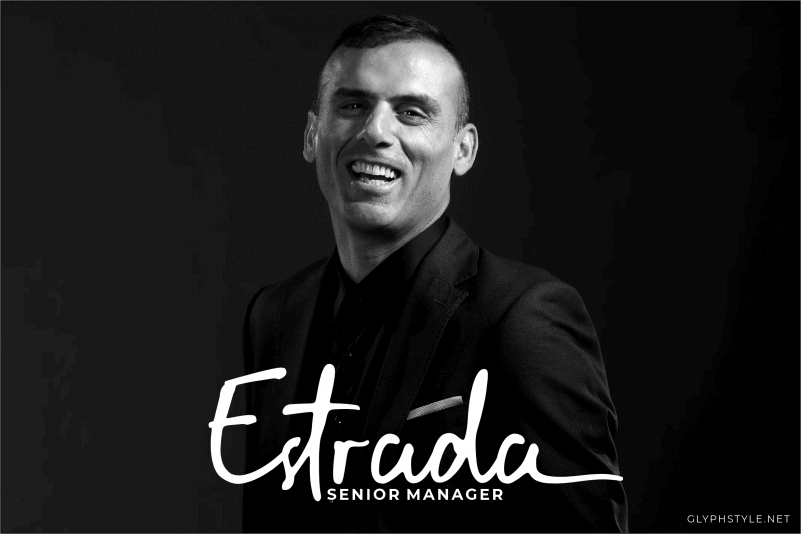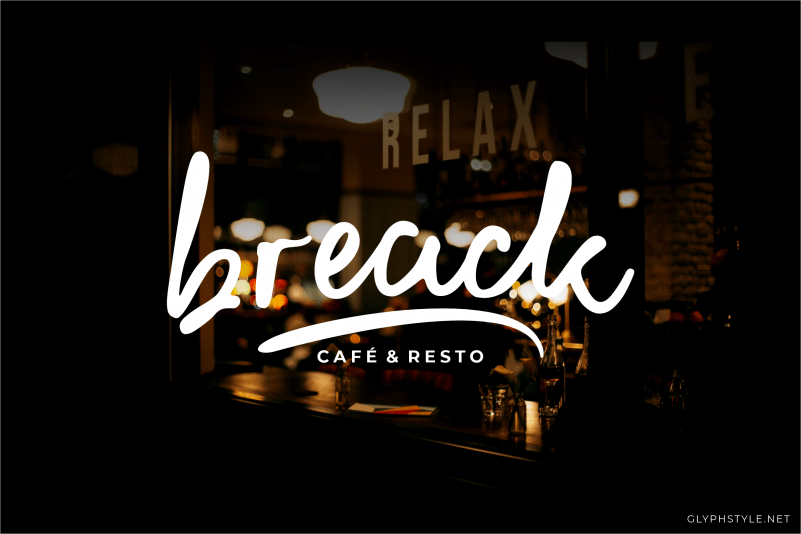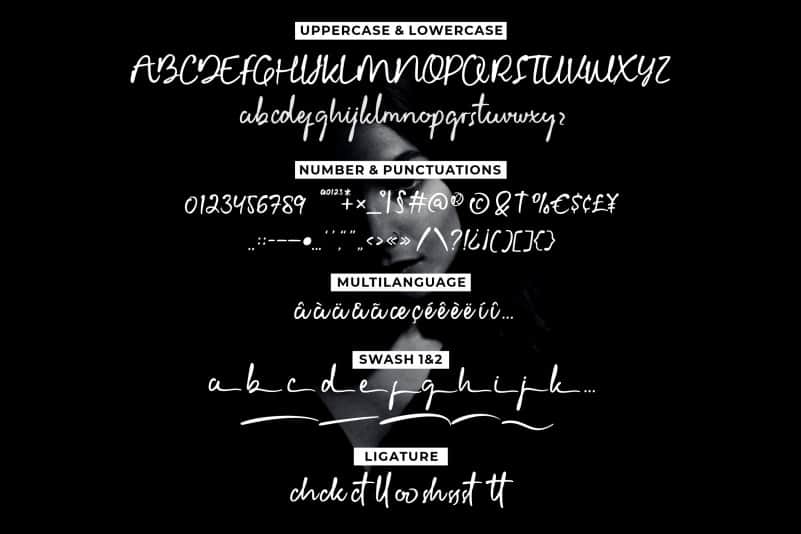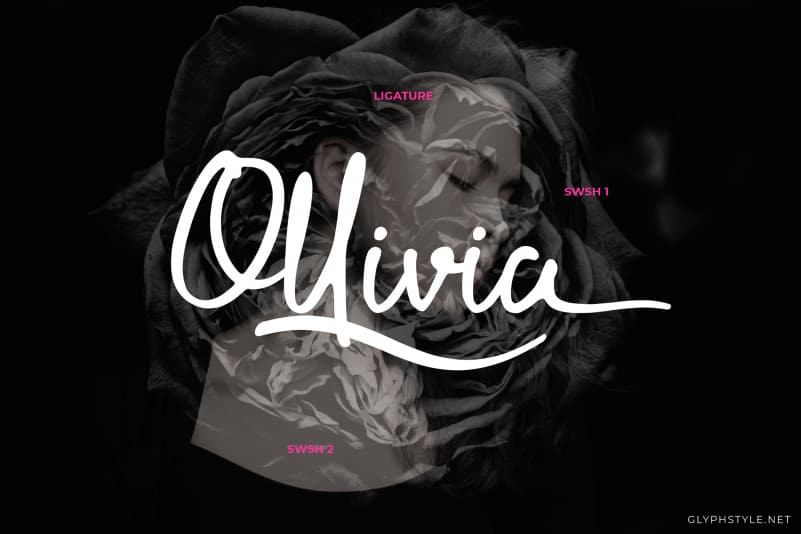
Gellardo Handwritten Typeface
Gellardo Handwritten Typeface is natural handwriting. Gellardo with a smooth curve, slightly thick and natural like a hand stroke. It is perfect for using a brand name, someone’s name.
This font can be used for branding and logos, wedding designs, social media posts, advertisements, business cards, clothing products, quotes, magazine covers, labels, photography, watermarks, invitations, stationery, and any project that requires handwriting with subtle tastes.